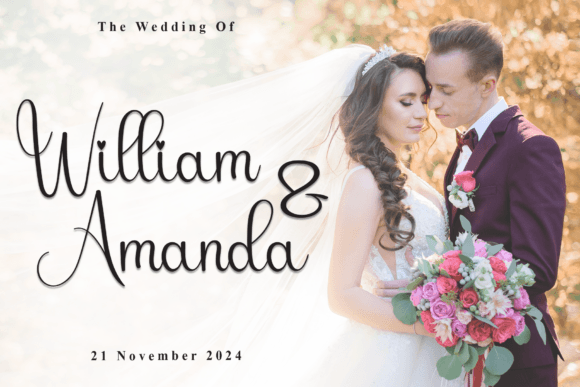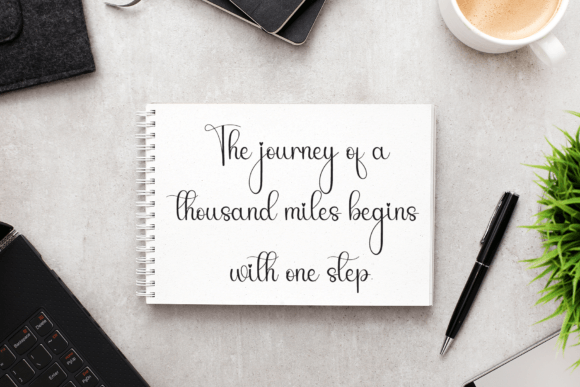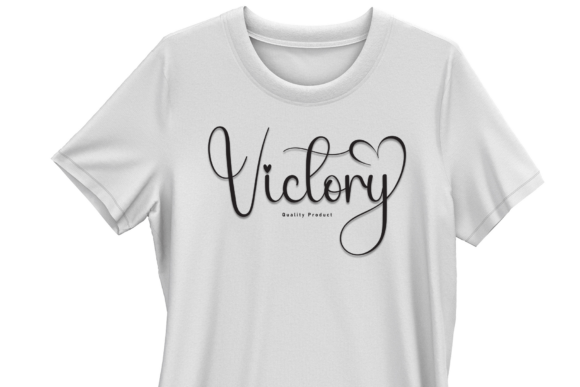
Introduction to Diary Beauty Font
Immerse yourself in the charm of our sweet and amicable handwritten display font.
Embellished with a delightful vibe, this font breathes life into wedding invitations, custom cards or any design craving a touch of whimsy Its lovable and entertaining aura makes it perfect for adding a personal, fun spin on any aesthetic project.